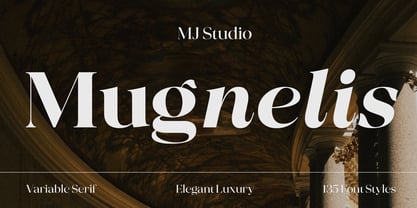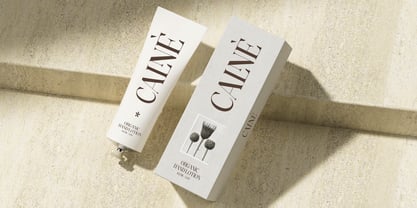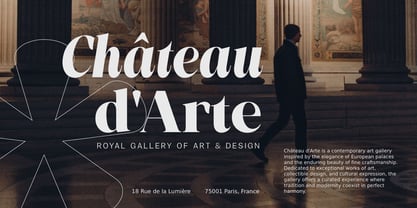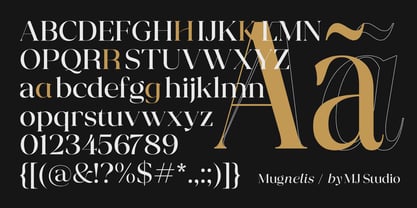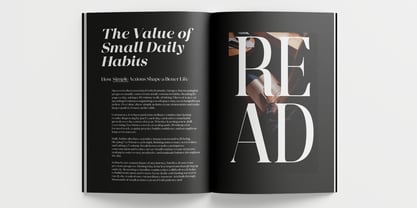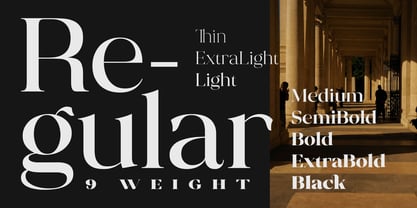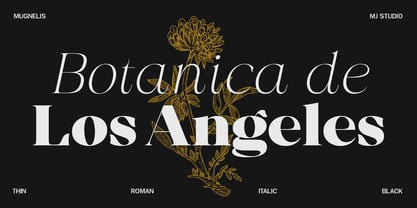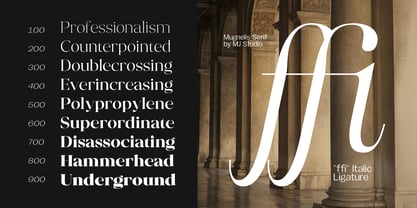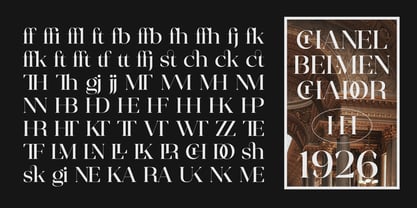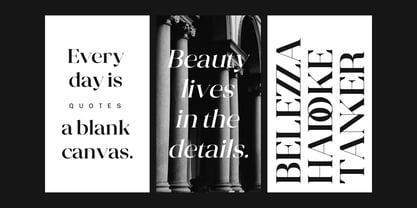
Mugnelis
by Mj Studio
Mugnelis is a contemporary luxury serif family that combines timeless elegance with exceptional versatility. Featuring refined proportions, high-contrast strokes, and sculpted serifs, it includes 135 font styles, a Variable Font, 61 professionally crafted ligatures, stylistic alternates, and Latin Pro language support.
Designed for branding, editorial, fashion, packaging, publishing, and premium visual identities, Mugnelis delivers sophisticated typography with outstanding flexibility, readability, and lasting visual impact.
Built as a complete serif system, Mugnelis gives designers the freedom to create everything from elegant editorial layouts to distinctive brand identities with a single, cohesive type family.
Designers: Ramadhan -
Foundry: Mj Studio